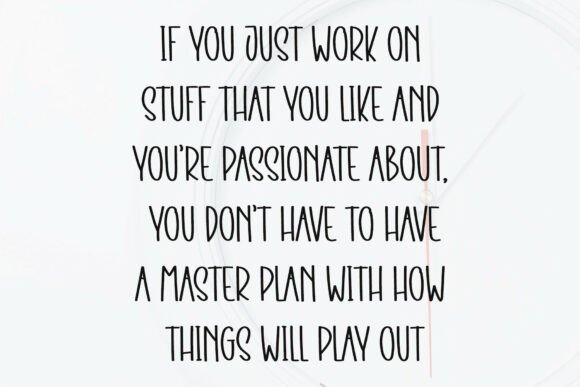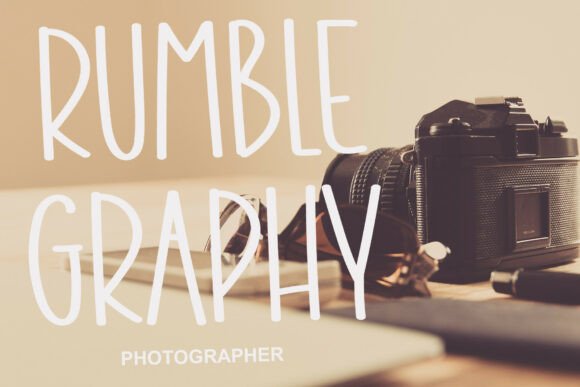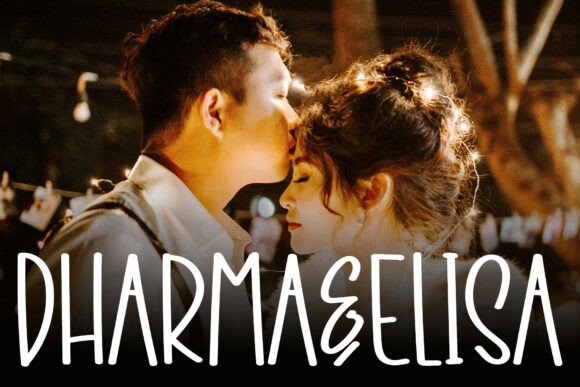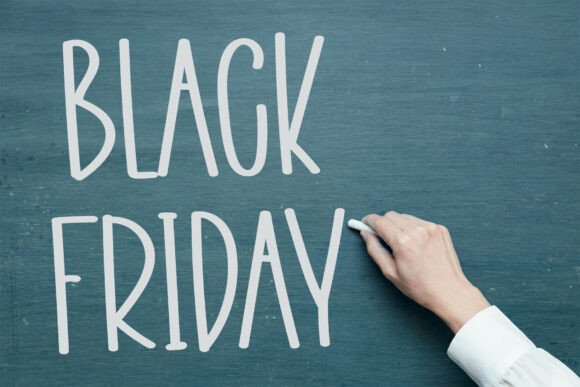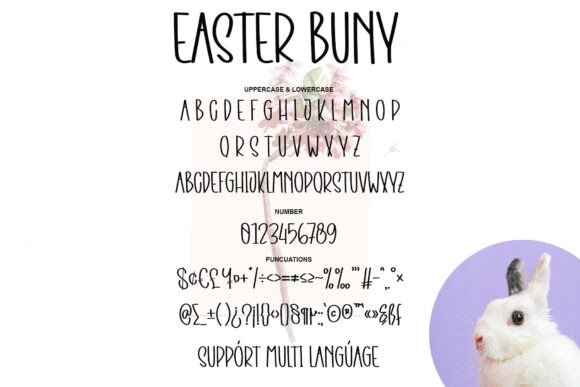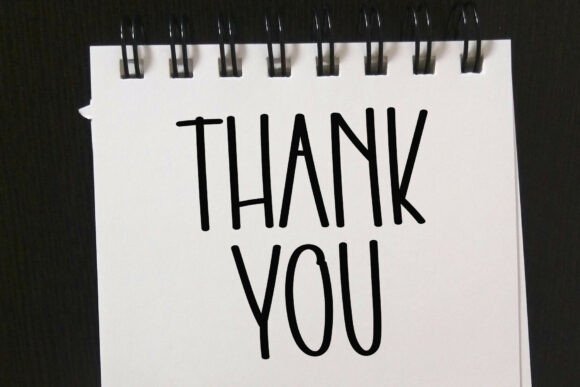
Easter Bunny Font: The Perfect Addition to Your Cheerful Designs
Are you looking for a fun and quirky font to add to your Easter-themed designs? Look no further than the Easter Bunny font! This delightful display font is perfect for use on cheerful topics and is especially suitable for children’s themed designs. When combined with bright colors, the Easter Bunny font is sure to bring a smile to anyone’s face.
What is the Easter Bunny Font?
The Easter Bunny font is a unique and playful display font that is designed to capture the whimsical spirit of Easter. With its fun and quirky lettering style, this font is sure to add a touch of personality to any design. The Easter Bunny font is perfect for use on a variety of projects, including Easter-themed posters, flyers, invitations, and more.
Key Features of the Easter Bunny Font
- Fun and quirky design: The Easter Bunny font features a unique and playful lettering style that is sure to add a touch of whimsy to any design.
- Perfect for children’s designs: The Easter Bunny font is especially suitable for children’s themed designs, making it a great choice for Easter-themed projects.
- Bright and cheerful: The Easter Bunny font is designed to be used with bright and cheerful colors, making it perfect for adding a pop of color to your designs.
How to Use the Easter Bunny Font
- Pair with bright colors: The Easter Bunny font is designed to be used with bright and cheerful colors, so don’t be afraid to get creative with your color palette.
- Use on Easter-themed projects: The Easter Bunny font is perfect for use on Easter-themed projects, including posters, flyers, and invitations.
- Experiment with different sizes: The Easter Bunny font can be used at a variety of different sizes, so experiment with different sizes to find the one that works best for your design.
Design Ideas Using the Easter Bunny Font
The Easter Bunny font is a versatile font that can be used on a variety of different design projects. Here are a few ideas to get you started:
- Easter-themed posters: Create a fun and eye-catching Easter-themed poster using the Easter Bunny font and bright, cheerful colors.
- Children’s party invitations: Use the Easter Bunny font to create fun and playful invitations for a children’s Easter party.
- Easter-themed crafts: Use the Easter Bunny font to add a personal touch to Easter-themed crafts, such as Easter egg decorations and Easter baskets.
- Keep it simple: While the Easter Bunny font is a fun and playful font, it’s best to keep your designs simple and easy to read.
| Font Name | Easter Bunny Font |
| Author | Bintang Studio |
The Easter Bunny font is a fun and quirky display font that is perfect for use on cheerful topics, especially children’s themed designs. With its bright and cheerful design, this font is sure to bring a smile to anyone’s face. Whether you’re a designer or crafter, the Easter Bunny font is a great choice for adding a personal touch to your Easter-themed projects.